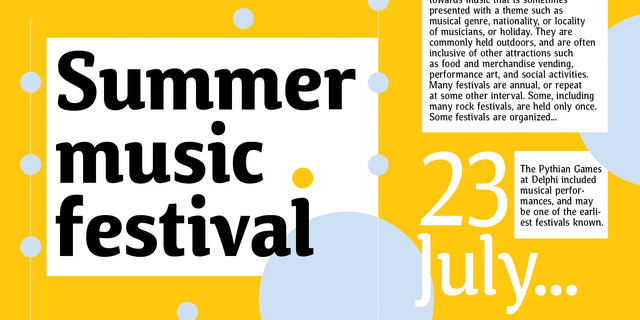
Calendula (8 fonts)
Calendula is a humanistic font with low contrast and one-sided serifs. There are eight styles: four regular of different weights from Light to Bold and corresponding italics. The main set of regular styles is close to upright italics, so the font is percieved as informal and friendly. However, Calendula allows you to combine business with pleasure by switching the stylistic set, and turns into a calm text font with traditional upright forms. The font was designed by Natalia Vasilyeva and released by Paratype in 2017.
Associations for font family CalendulaTypeface personality and character:
polite, Soft, cozy, moderate, calm, stable, universal, cultured, comfortable, unobtrusive, smooth, peaceful, friendly, clear, static, restrained, modern, eco-friendly, green, harmonious, spring, humanitarian, organic, beautiful, pleasant, plastic, flexible, kind, cultural, orderly, optimistic, leisurely, juicy, cute, family, festive, home, delicious, fresh, confidence, high-quality, pretty, nice, natural, girlish, summer, warm, flat
Typeface exhibits stylistic traits: